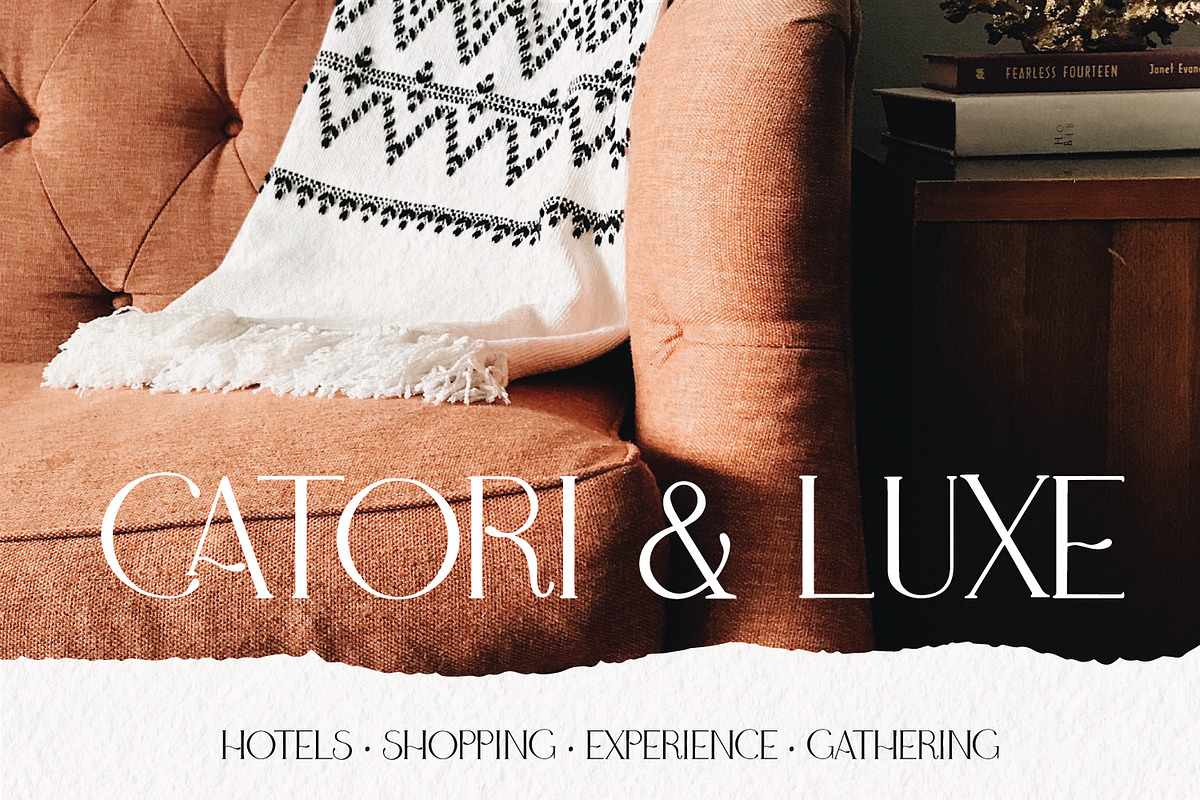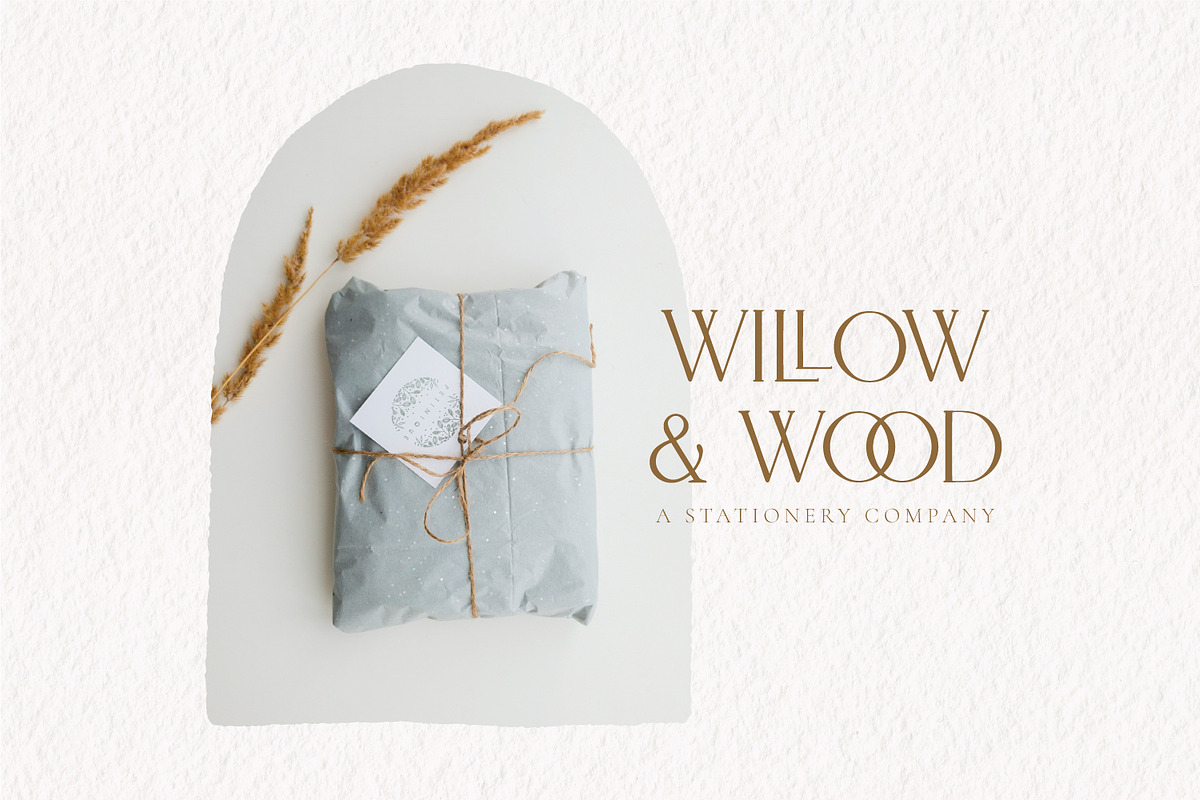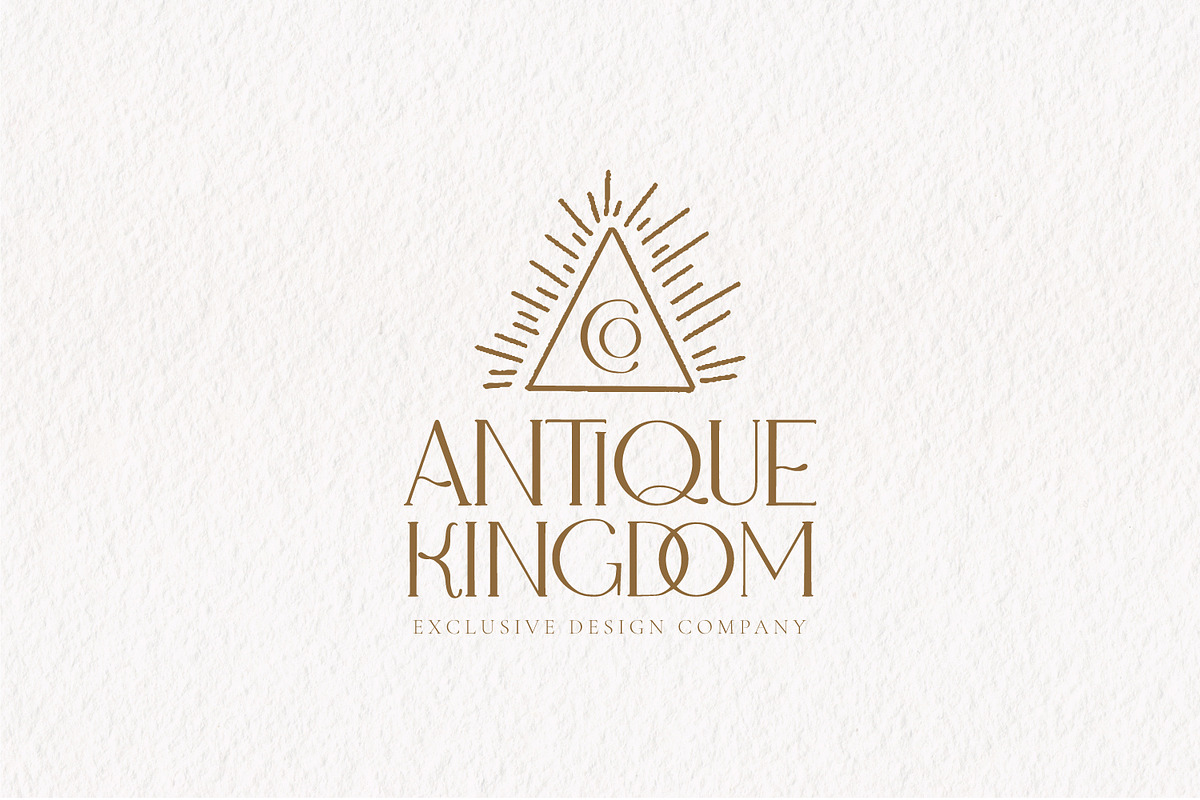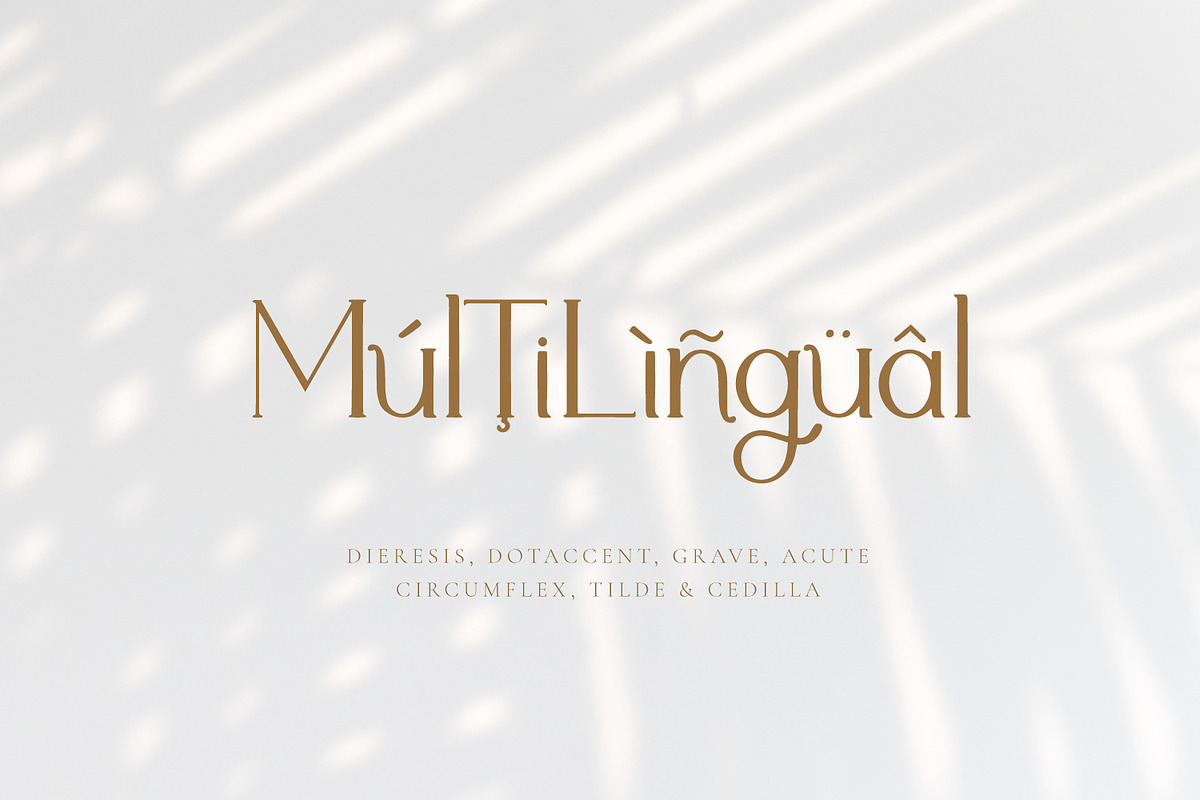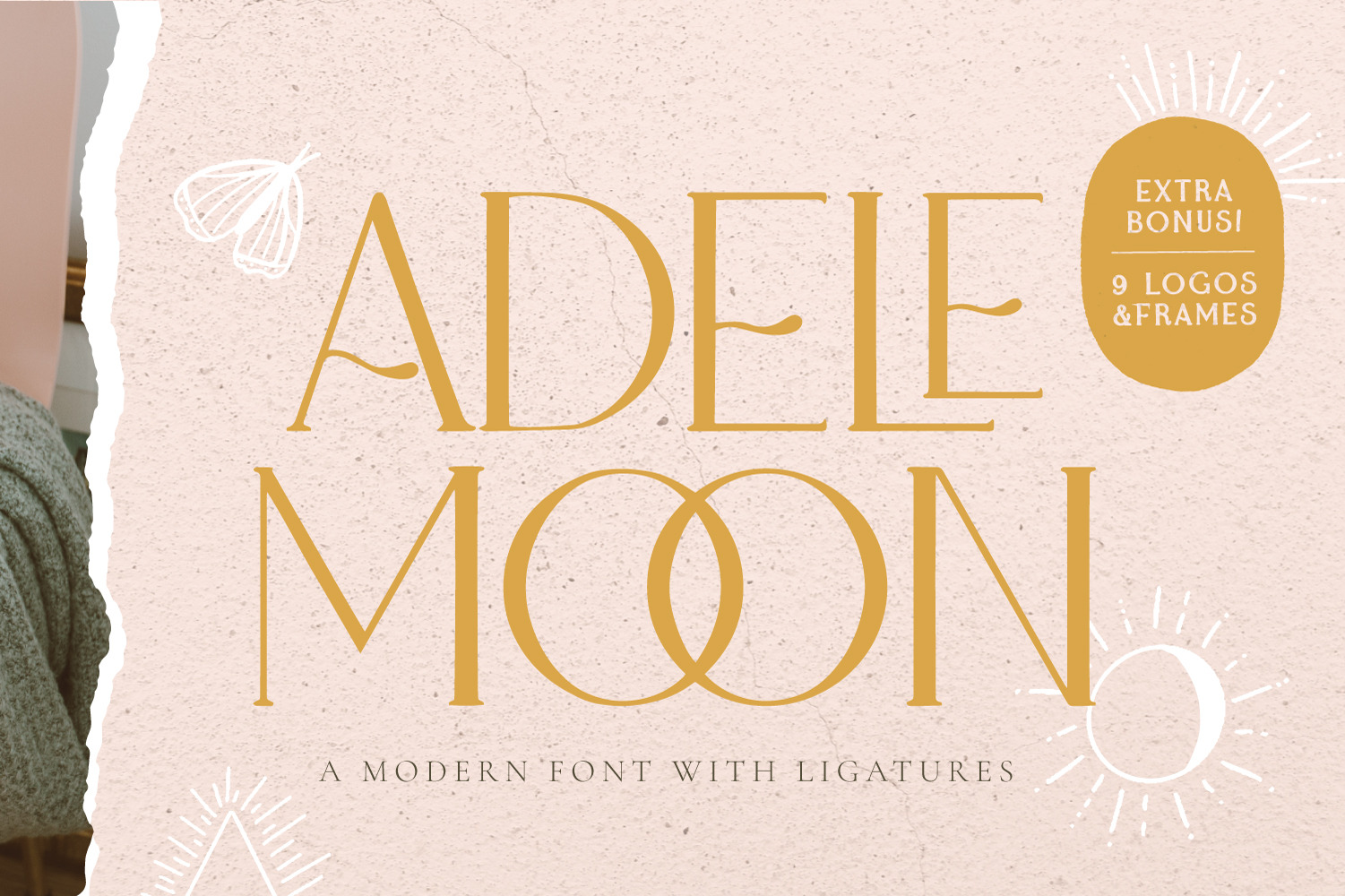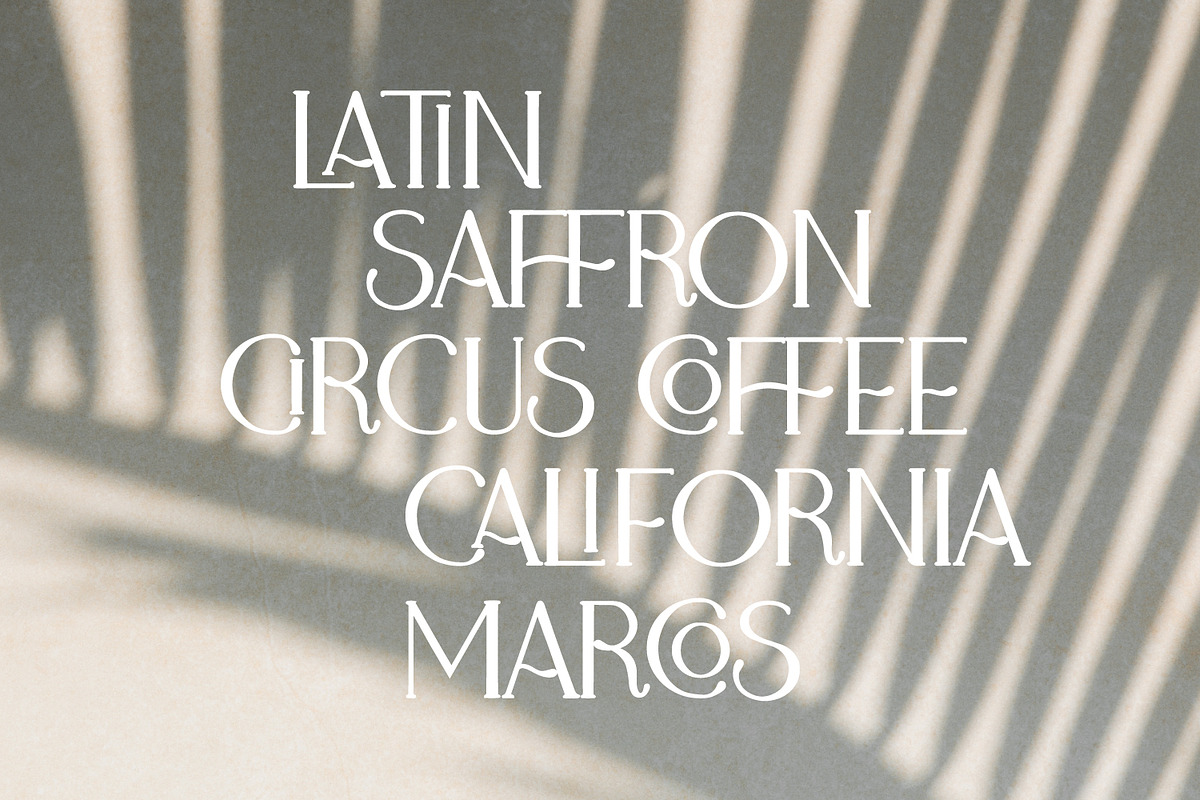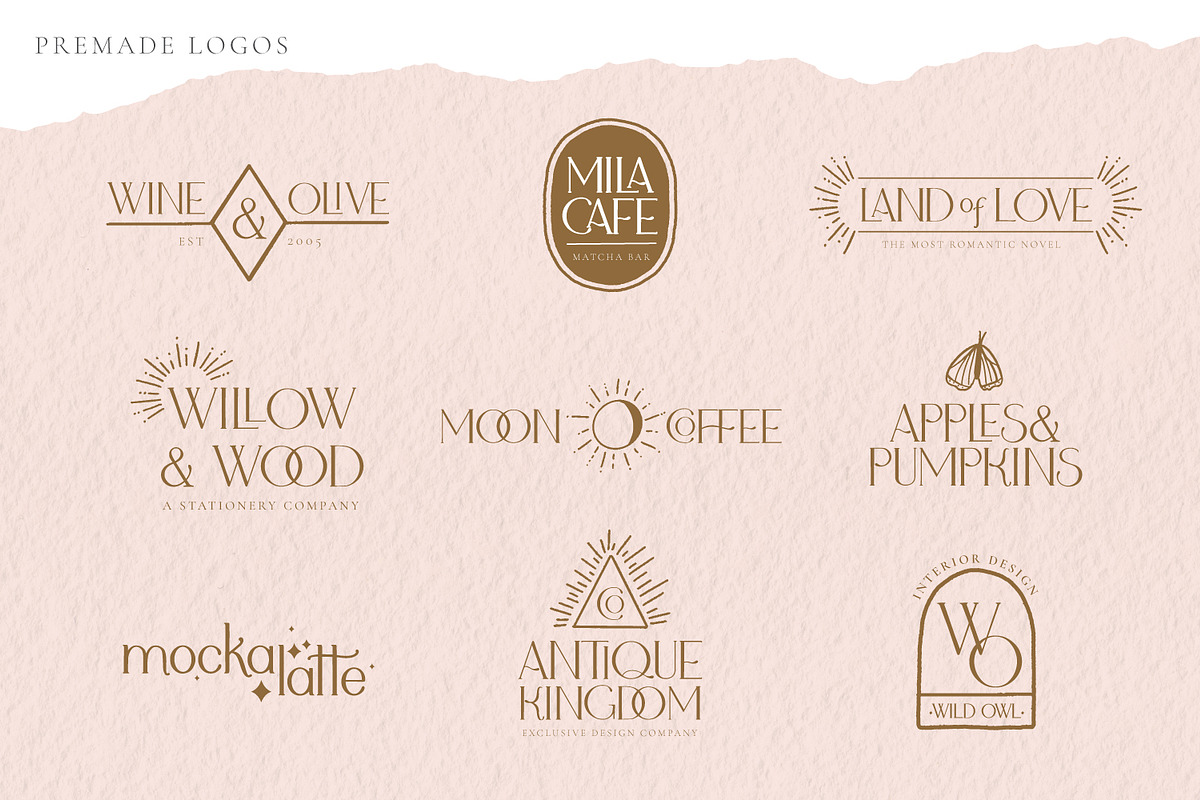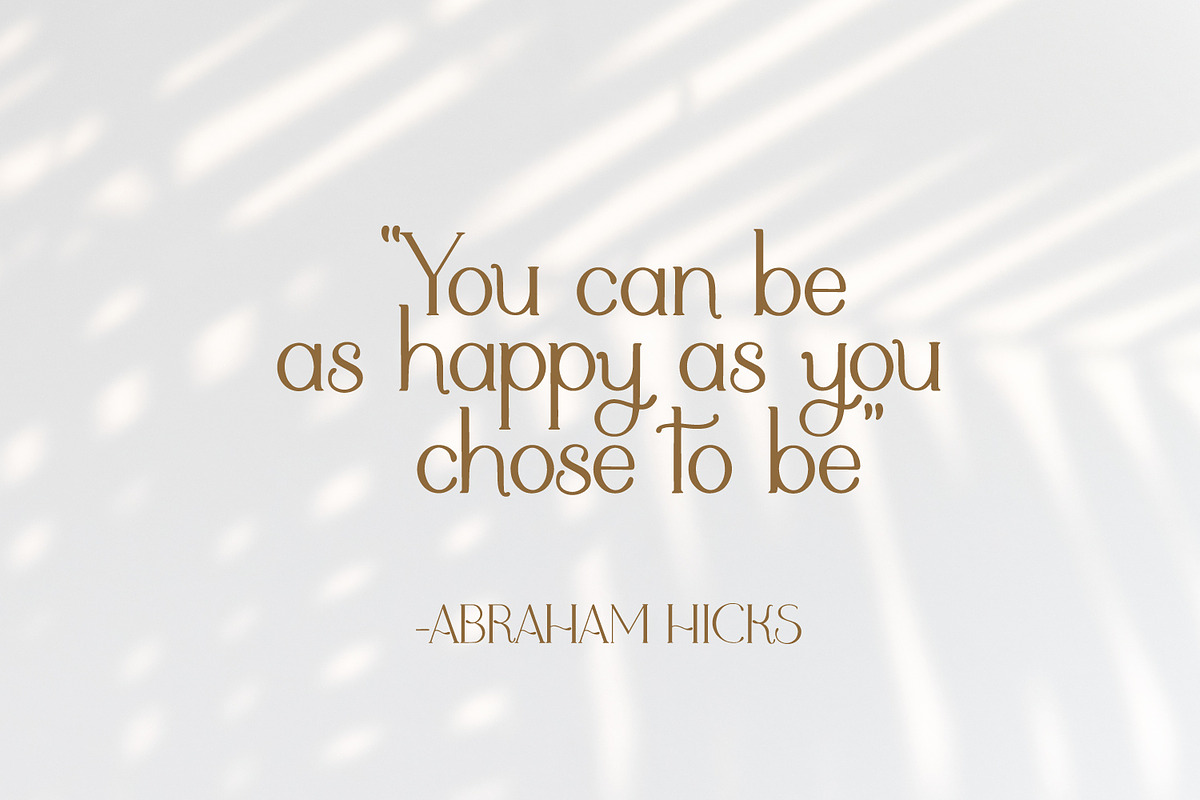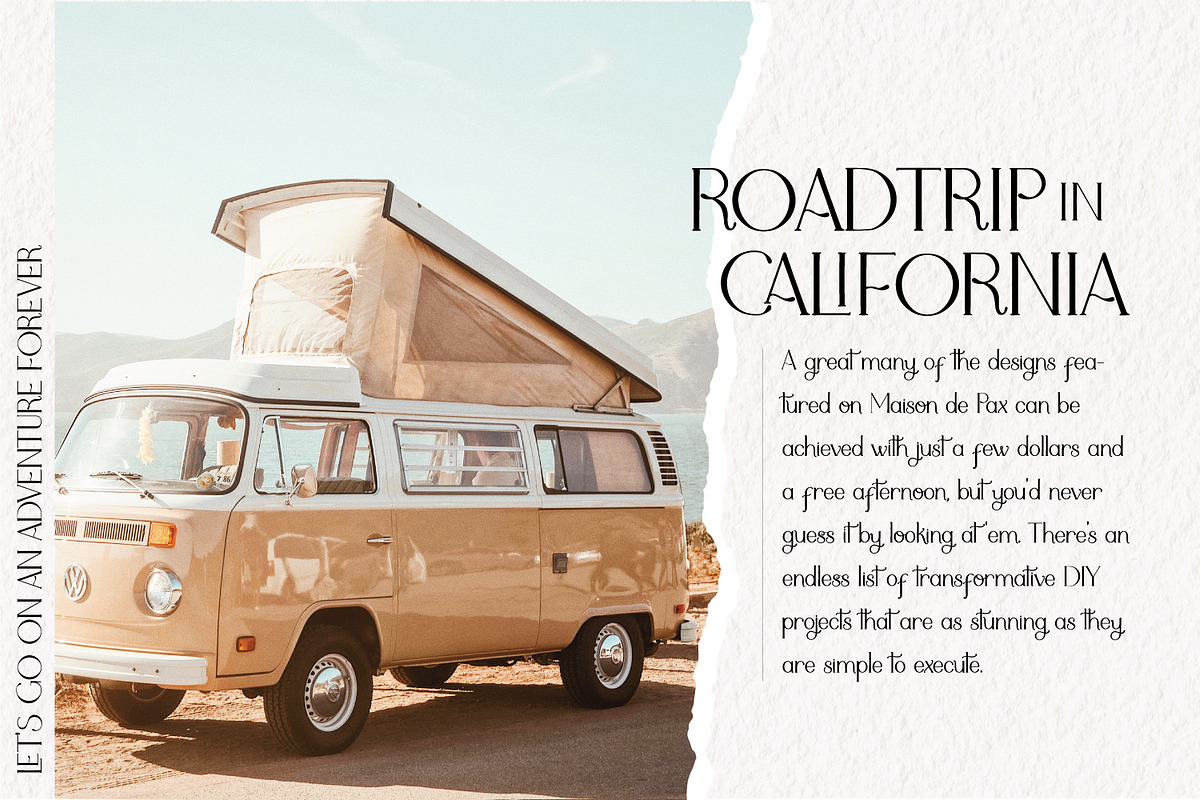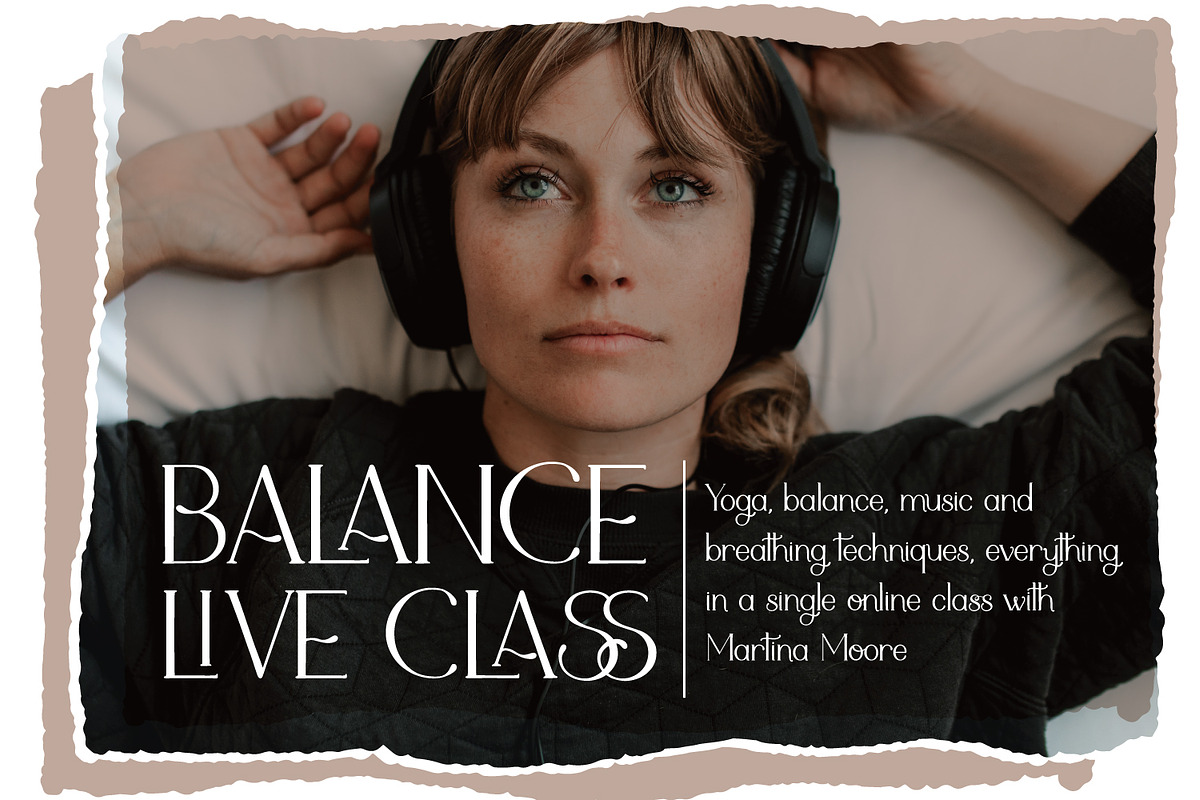
Adele Moon Serif Font + Extras
Adele Moon is a serif font inspired in the Art Deco Style but with a modern twist. Featuring lovely uppercase ligatures to engage every title, logo, or branding. Uppercase and lowercase, all the glyphs are captivating and versatile to work on any design project.
Perfect for branding, titles, logos, stationery, body texts, and more. This font includes 22 different ligatures with common letter combinations to make your design text pop up with a charming style.
As a BONUS!! I've included 9 modern premade logos with exquisite touches. Also, 13 trendy shapes with ripped edges to use as photo frames in your creations. This font was handmade with lots of love.